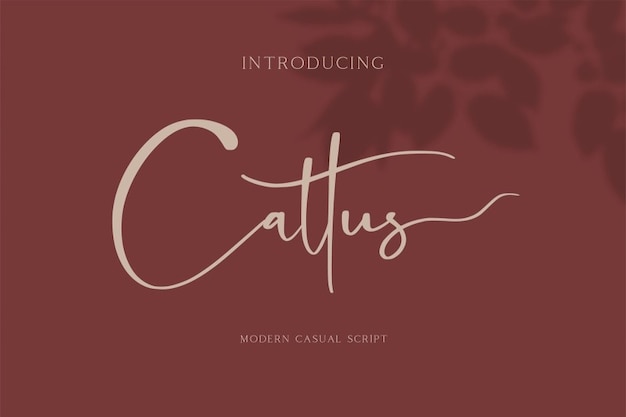
Cattus Font
It is a font that strikes a perfect balance between modern style and casual charm. Its calligraphic and handwritten elements blend seamlessly to create an inviting and relaxed feel. This font is like the brush strokes of a contemporary artist, making it ideal for designs that need a touch of personal warmth and approachability. Whether you're working on invitations, social media posts, or branding materials, "Cattus" adds a modern, handwritten flair that makes your content feel genuine and friendly.